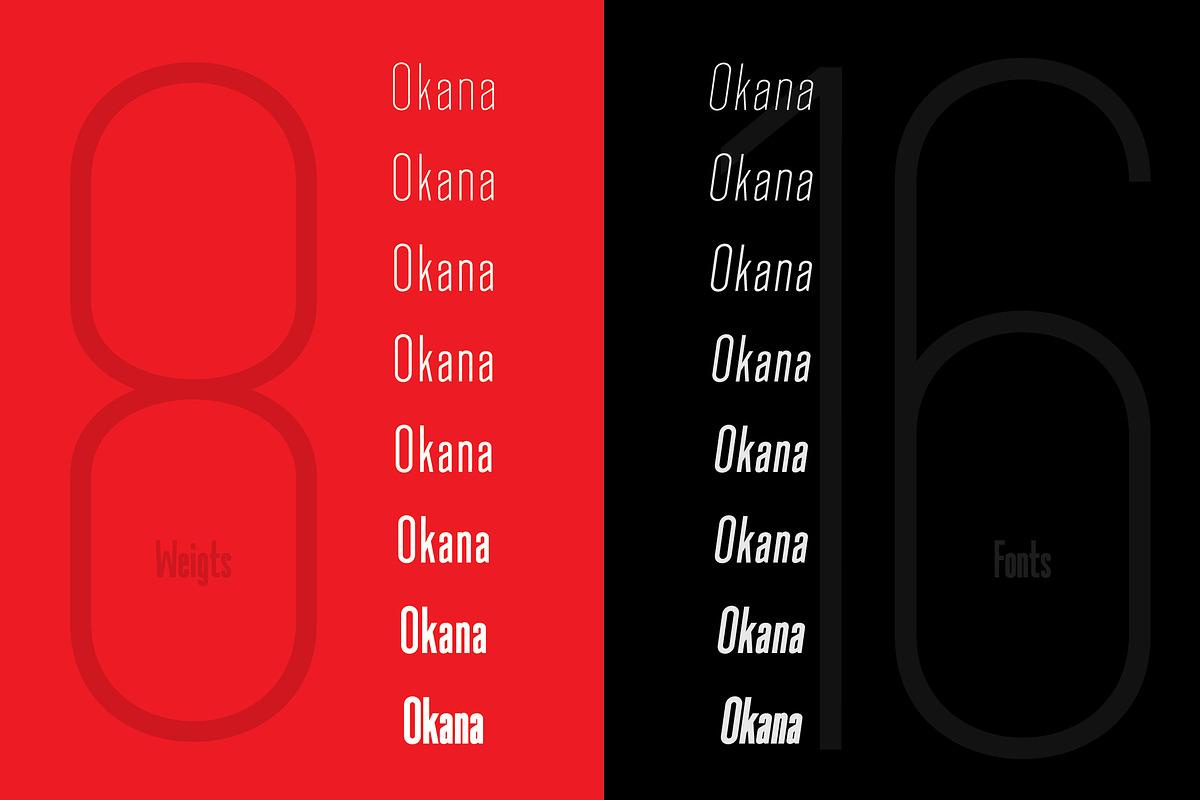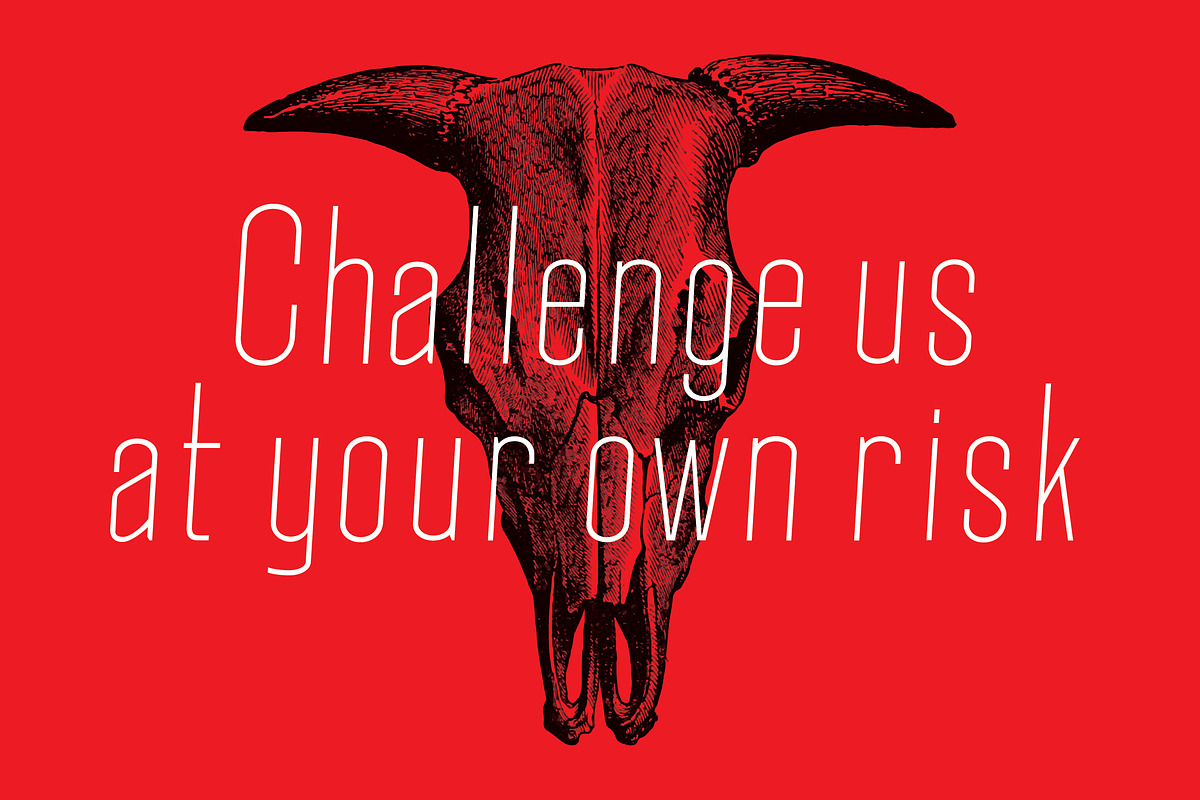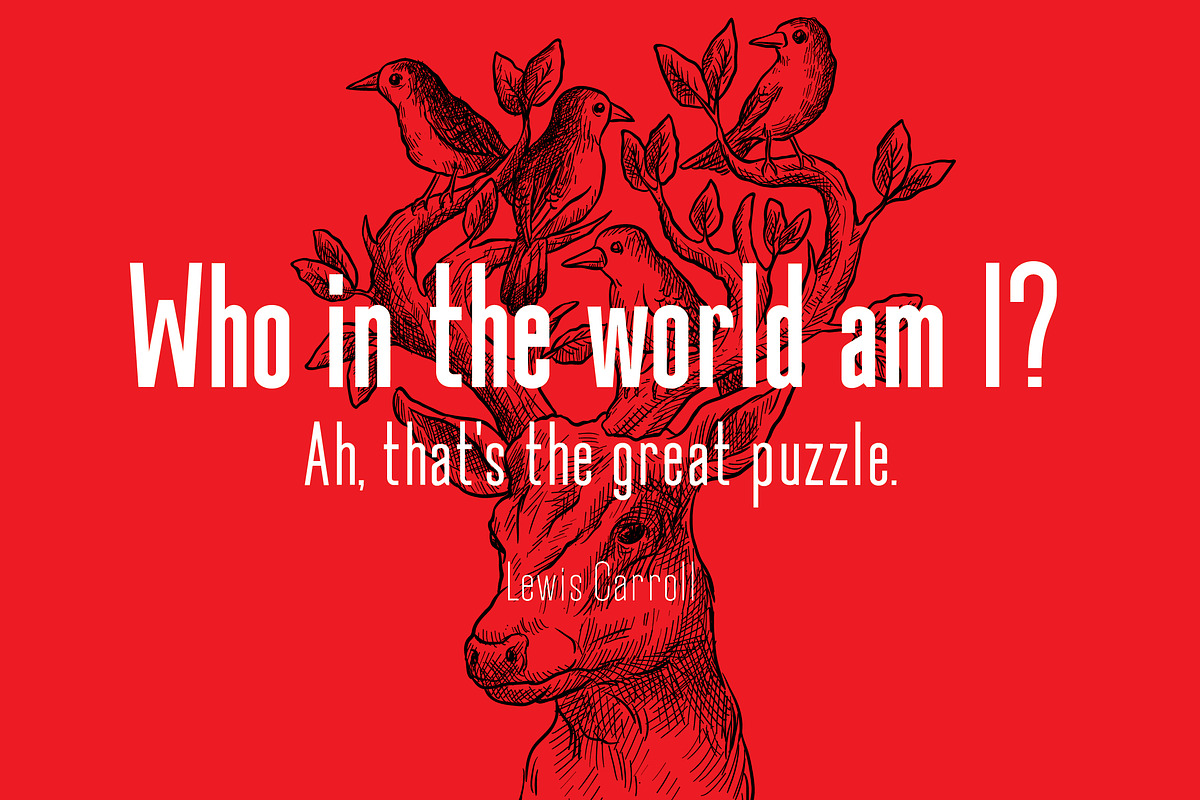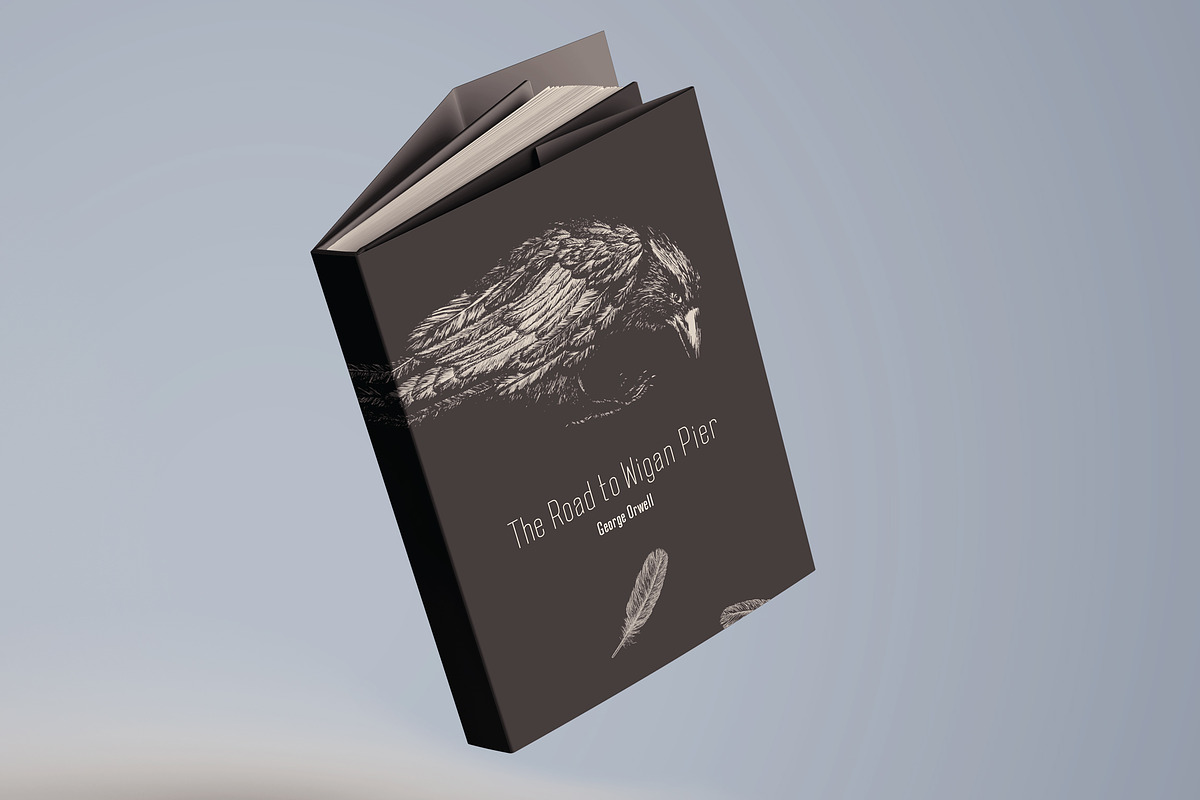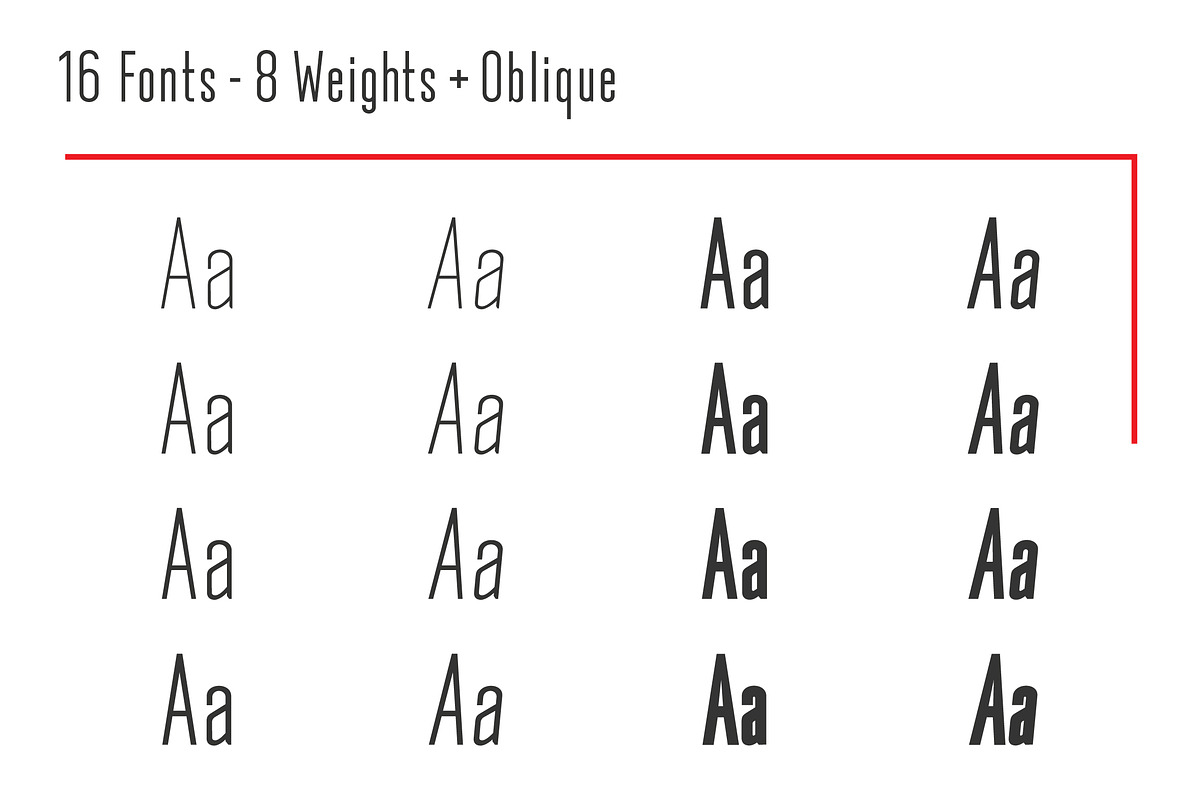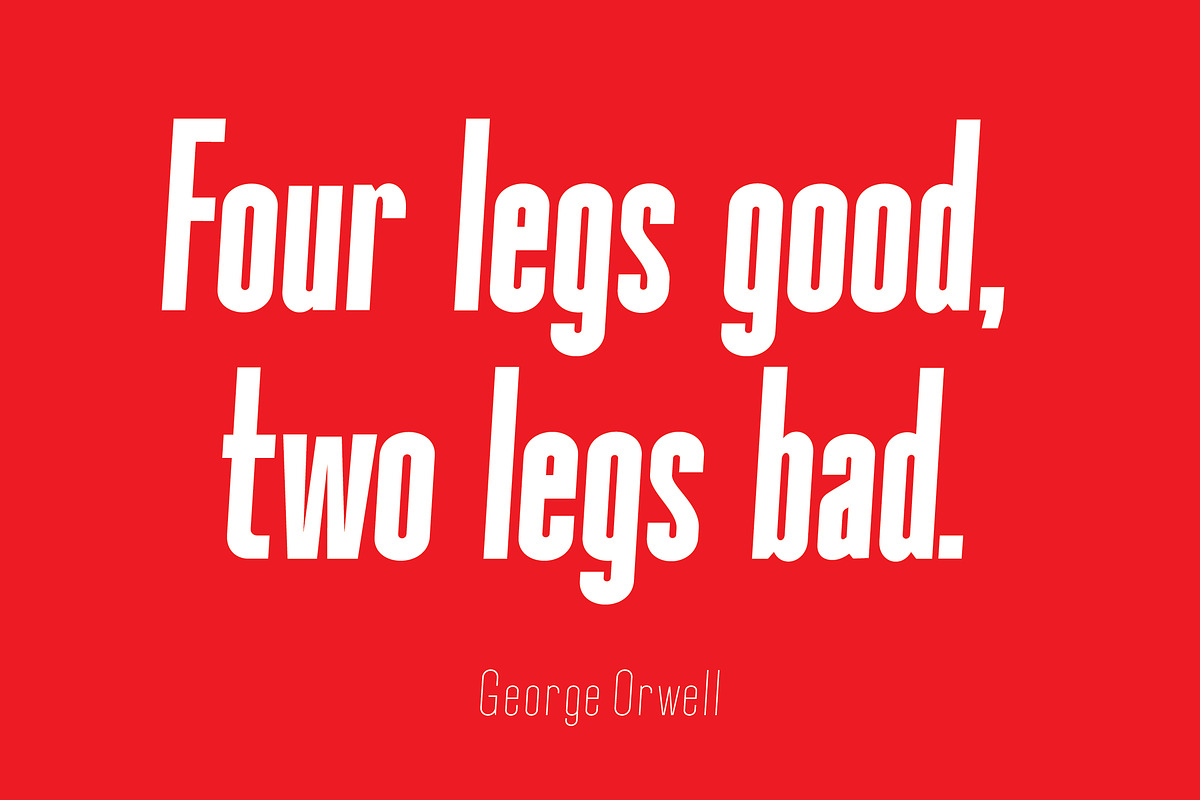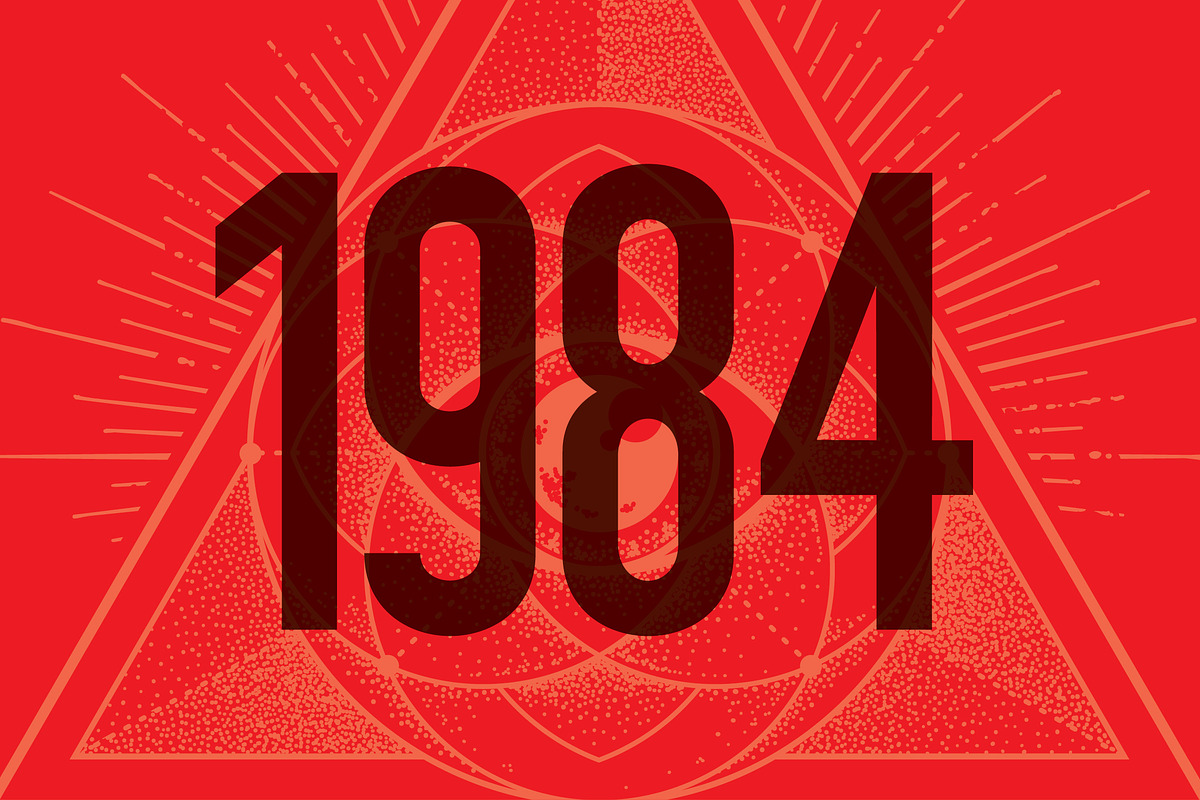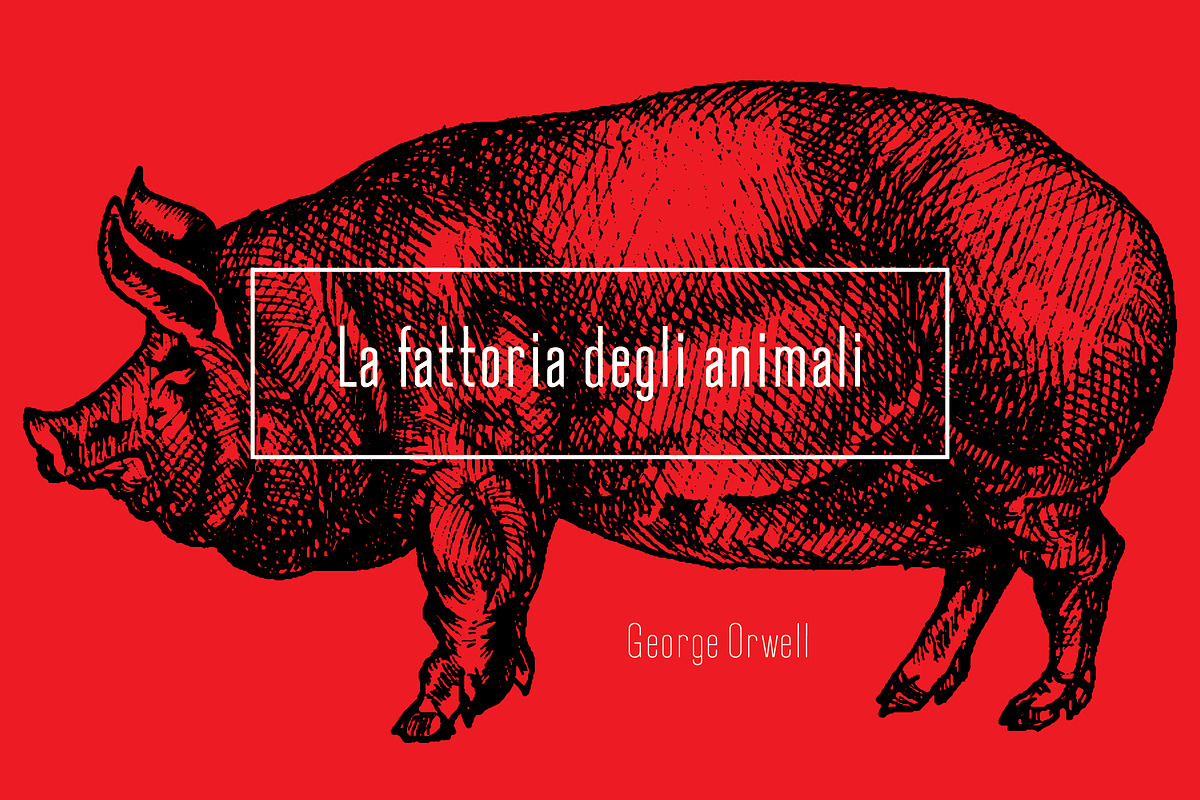
Okana Condensed Sans Serif
Okana is a geometric sans serif font family. It comes in 16 styles, 8 uprights and matching obliques.
Easy to use font for creating beautiful layouts for posters, social media, book covers, headlines, etc.